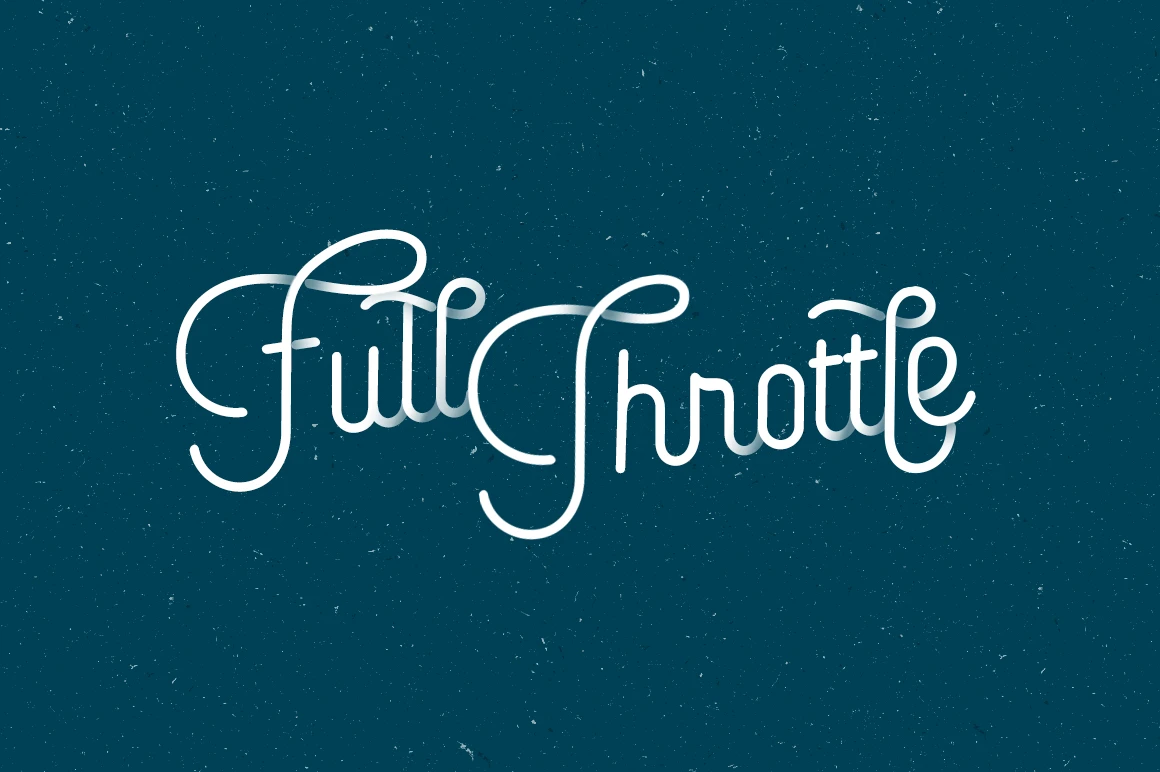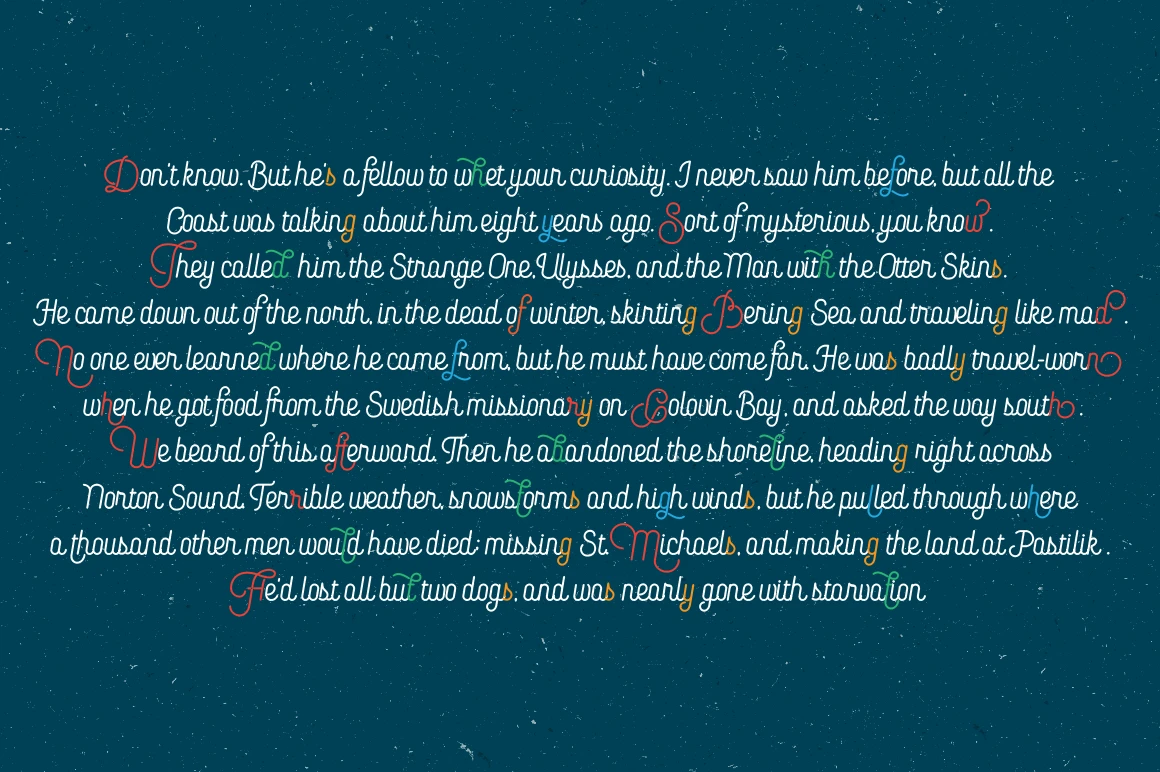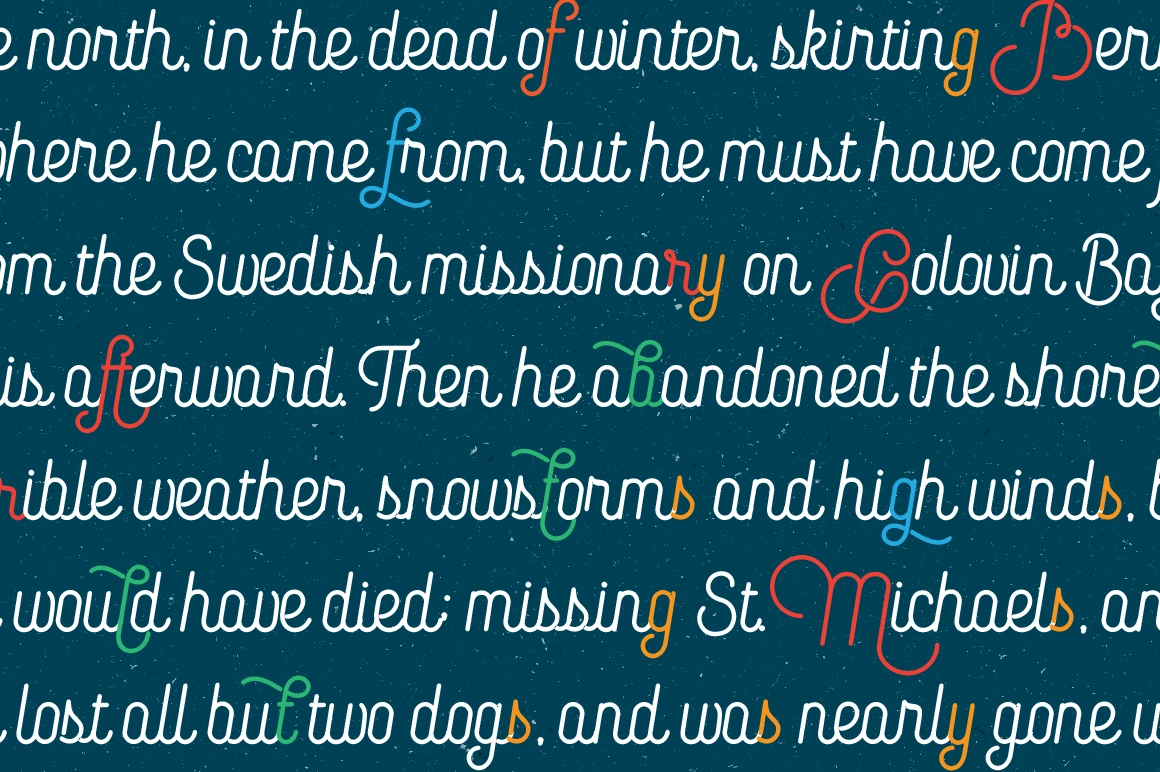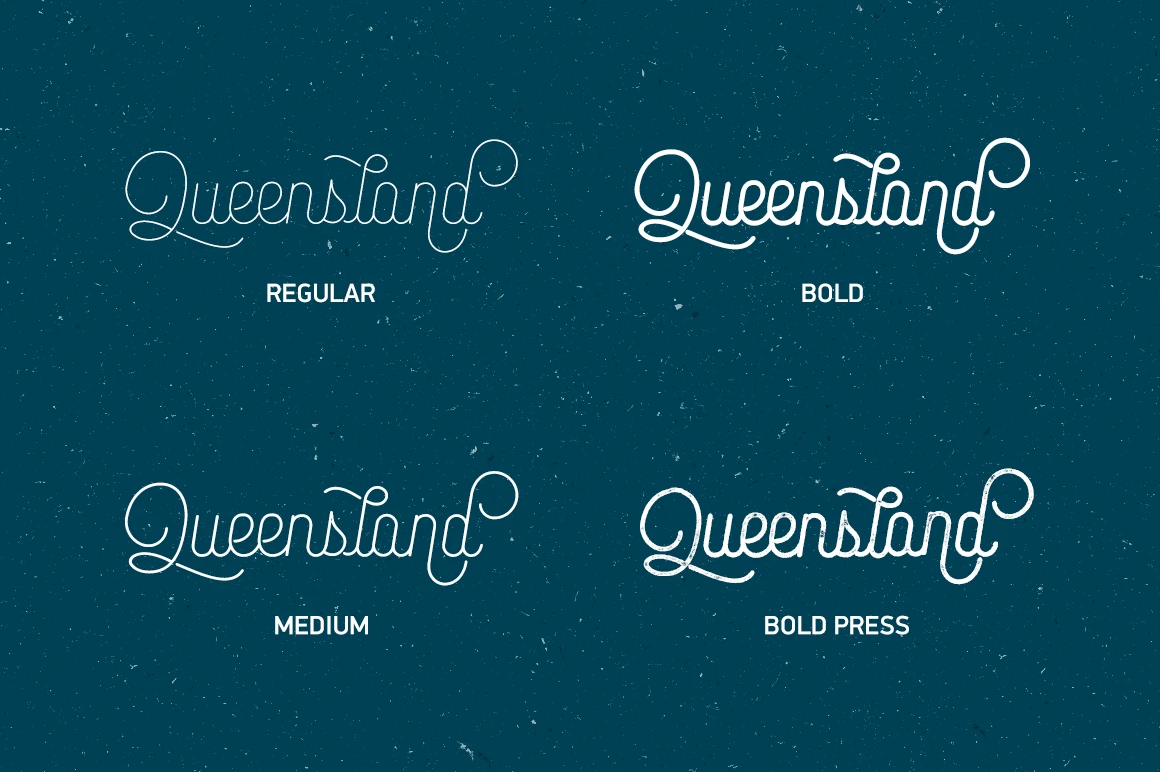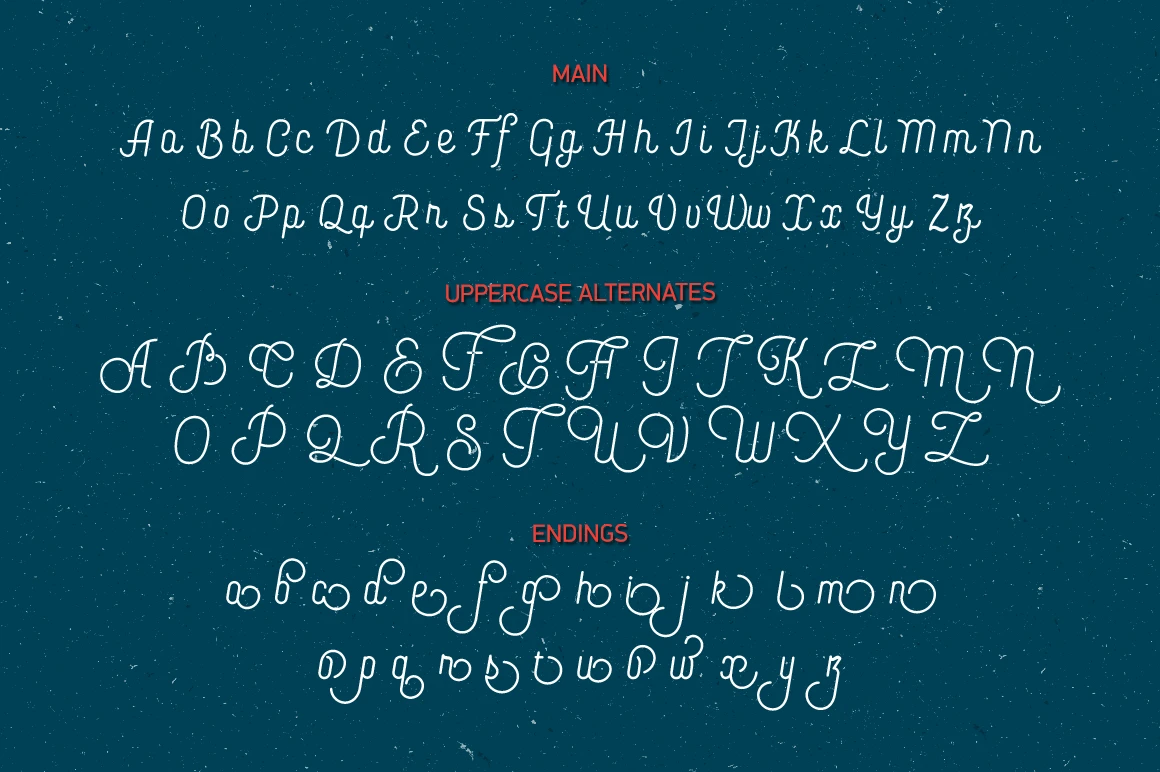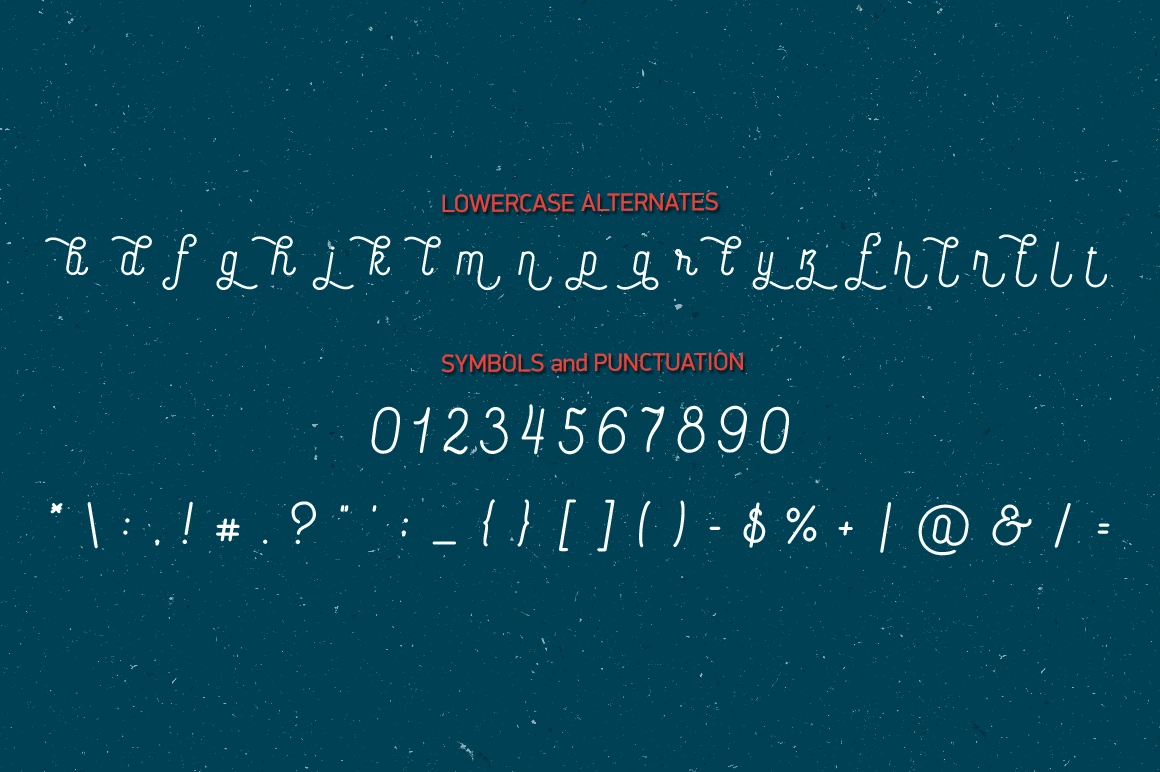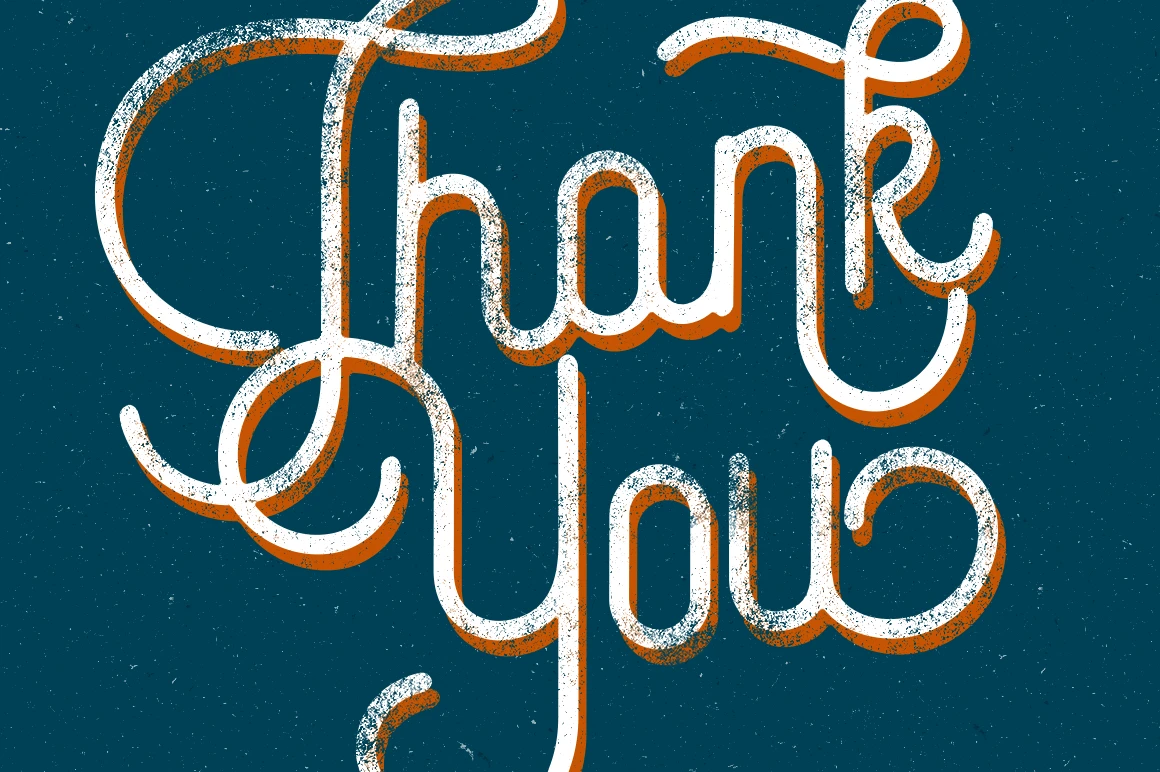
Canyons Font Family
Canyons is a gentle vintage monoline script made for lovers of retro style. Comes in four styles: Regular, Medium, Bold, and Bold with a press effect. Packed with alternates to add variety and flair. Clean and easy to read, making it great for logos, packaging, signage, and branding. Built for projects that call for warmth, charm, and a classic touch.
• Stylistic Alternates
• Stylistic Sets